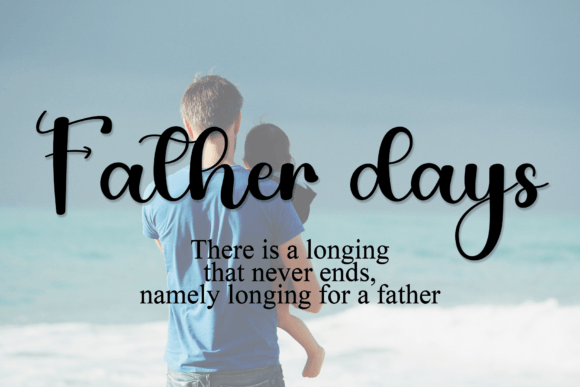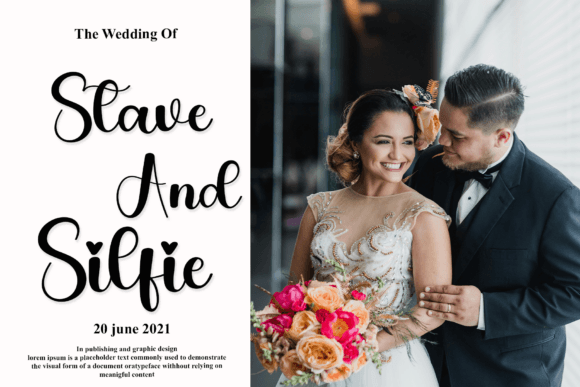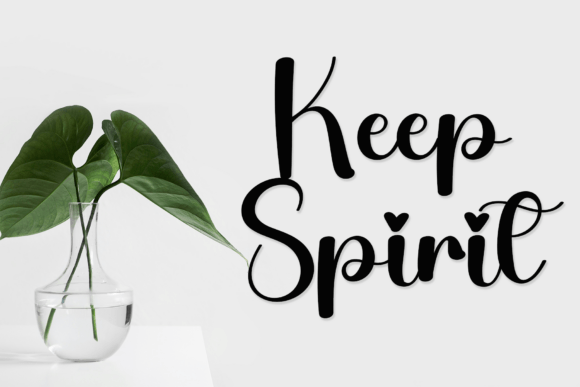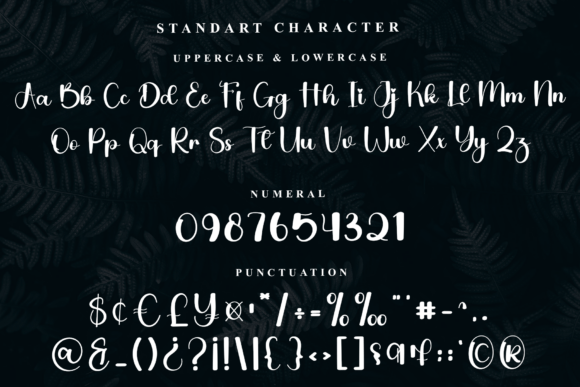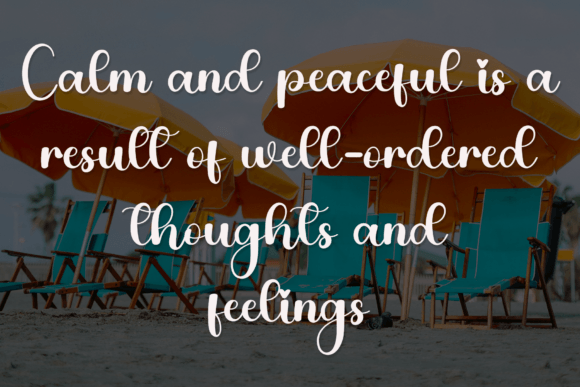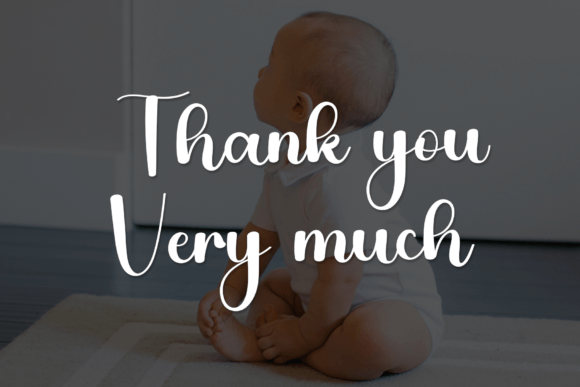
Baby Powder Font: The Sweet and Friendly Handwritten Font for Your Designs
Are you looking for a font that can add a touch of sweetness and friendliness to your designs? Look no further than the Baby Powder font! This beautiful handwritten font is perfect for designers and crafters who want to create unique and eye-catching designs that stand out from the crowd. In this article, we’ll take a closer look at the Baby Powder font, its features, and how you can use it to take your designs to the next level.
What is Baby Powder Font?
Baby Powder is a sweet and friendly handwritten font that is designed to bring a touch of warmth and personality to your designs. Its natural and unique style makes it incredibly fitting to a large pool of designs, from baby-themed projects to more general use cases. The font’s soft and rounded edges give it a gentle, approachable feel that’s perfect for creating designs that are both visually appealing and engaging.
Key Features of Baby Powder Font
So, what makes Baby Powder font so special? Here are just a few of its key features:
- Handwritten style: Baby Powder font has a beautiful, handwritten style that’s perfect for creating designs that feel personal and unique.
- Sweet and friendly: The font’s soft and rounded edges give it a sweet and friendly feel that’s perfect for designs that need to appeal to a wide audience.
- Natural and unique: Baby Powder font has a natural, organic feel that’s perfect for designs that need to stand out from the crowd.
- Versatile: The font is incredibly versatile, making it suitable for a wide range of designs and projects.
How to Use Baby Powder Font in Your Designs
So, how can you use Baby Powder font in your designs? The possibilities are endless! Here are just a few ideas to get you started:
- Baby-themed designs: Baby Powder font is perfect for baby-themed designs, such as birth announcements, baby shower invitations, and nursery decor.
- Wedding and event designs: The font’s sweet and friendly style makes it a great choice for wedding and event designs, such as invitations, programs, and signage.
- Branding and packaging: Baby Powder font can be used to create unique and eye-catching branding and packaging designs that stand out from the crowd.
- Digital and print designs: The font is suitable for both digital and print designs, making it a great choice for a wide range of projects.
Tips for Using Baby Powder Font Effectively
Here are a few tips for using Baby Powder font effectively in your designs:
- Use it with contrasting fonts: Baby Powder font works best when paired with contrasting fonts that provide a clear visual hierarchy.
- Experiment with colors: The font looks great in a range of colors, so don’t be afraid to experiment and find the perfect hue for your design.
- Keep it simple: Baby Powder font is a statement font, so keep your design simple and uncluttered to let the font shine.
In conclusion, Baby Powder font is a sweet and friendly handwritten font that’s perfect for designers and crafters who want to create unique and eye-catching designs. Its natural and unique style makes it incredibly fitting to a large pool of designs, and its versatility makes it suitable for a wide range of projects. With its soft and rounded edges, Baby Powder font is sure to bring a touch of warmth and personality to your designs. So why not give it a try and see the difference it can make?
The only limit to what you can create with Baby Powder font is your imagination! So don’t be afraid to get creative and push the boundaries of what’s possible. With Baby Powder font, the possibilities are endless, and we’re excited to see what you come up with!